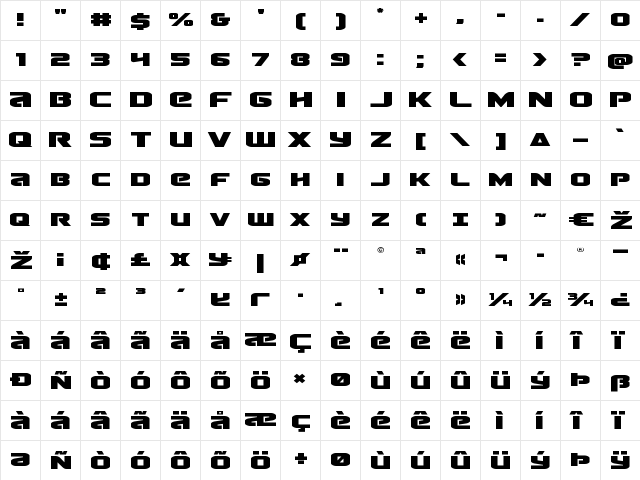
Terran Expanded Expanded
Design Context for Terran Expanded Typeface
Terran Expanded is a composed and adaptable typeface that performs quietly and consistently across a wide range of design contexts.